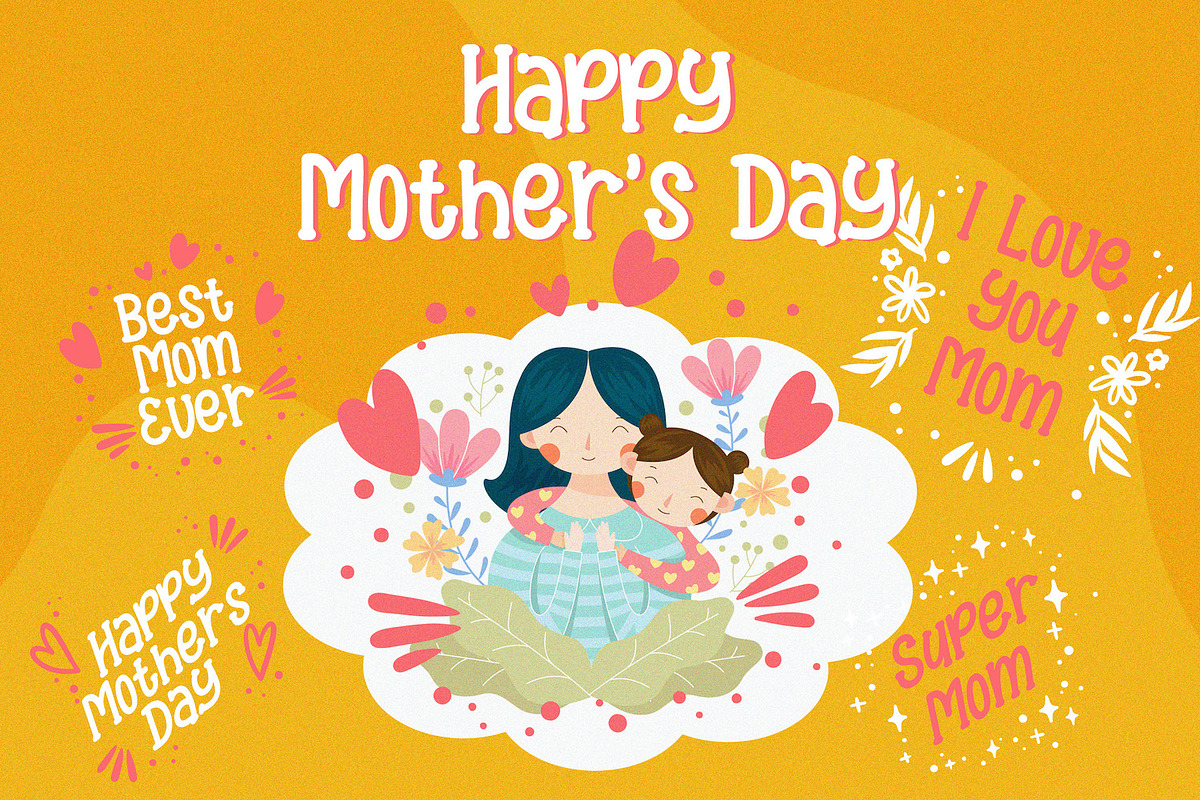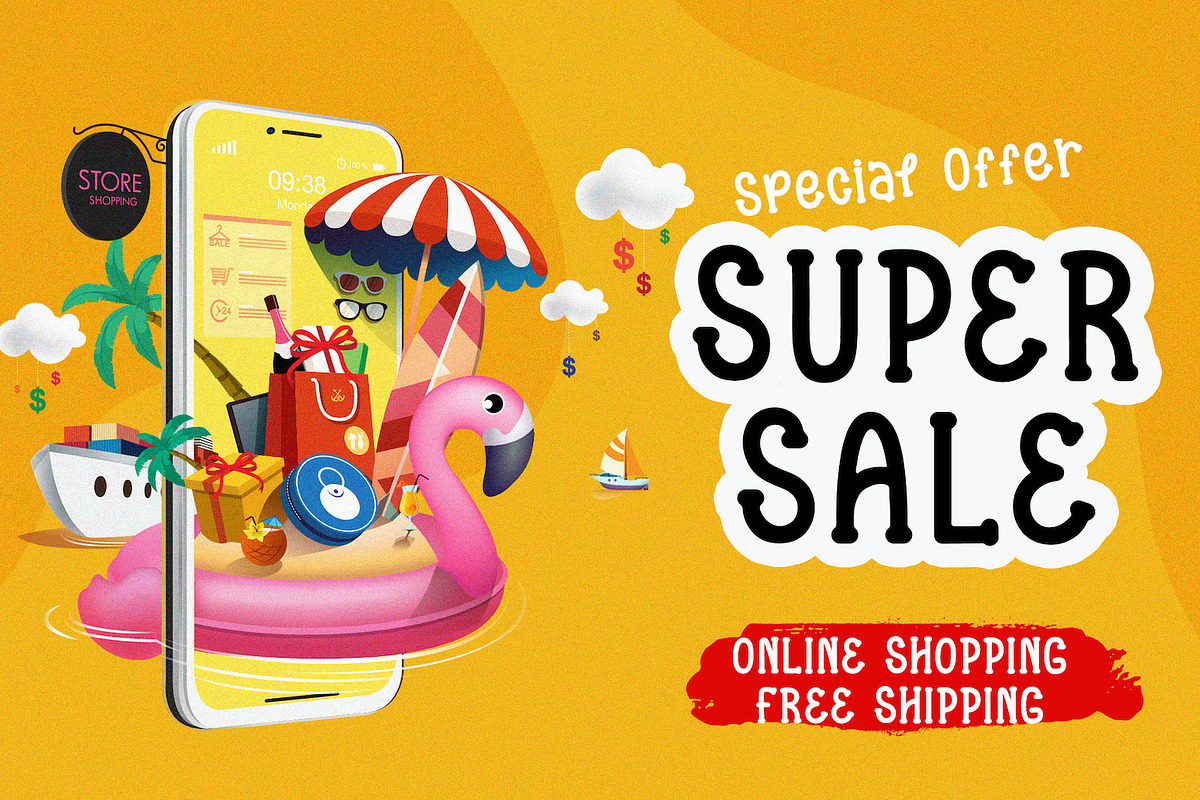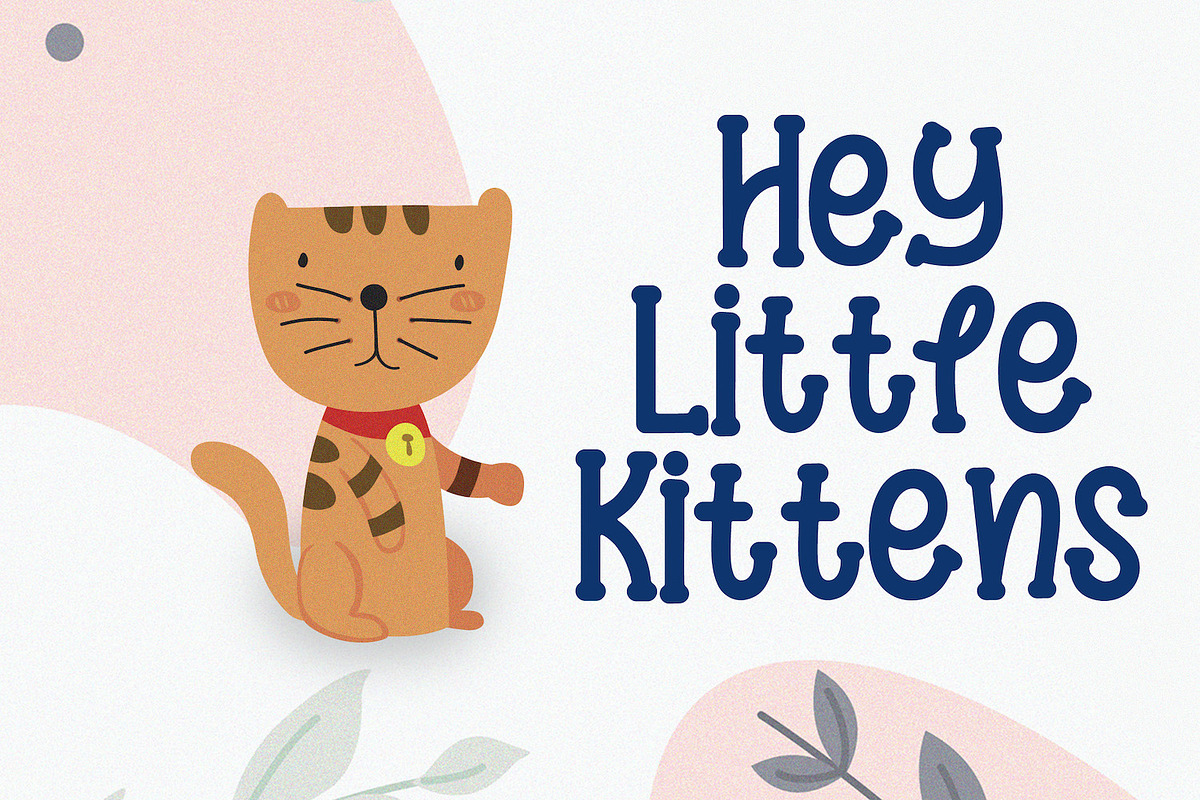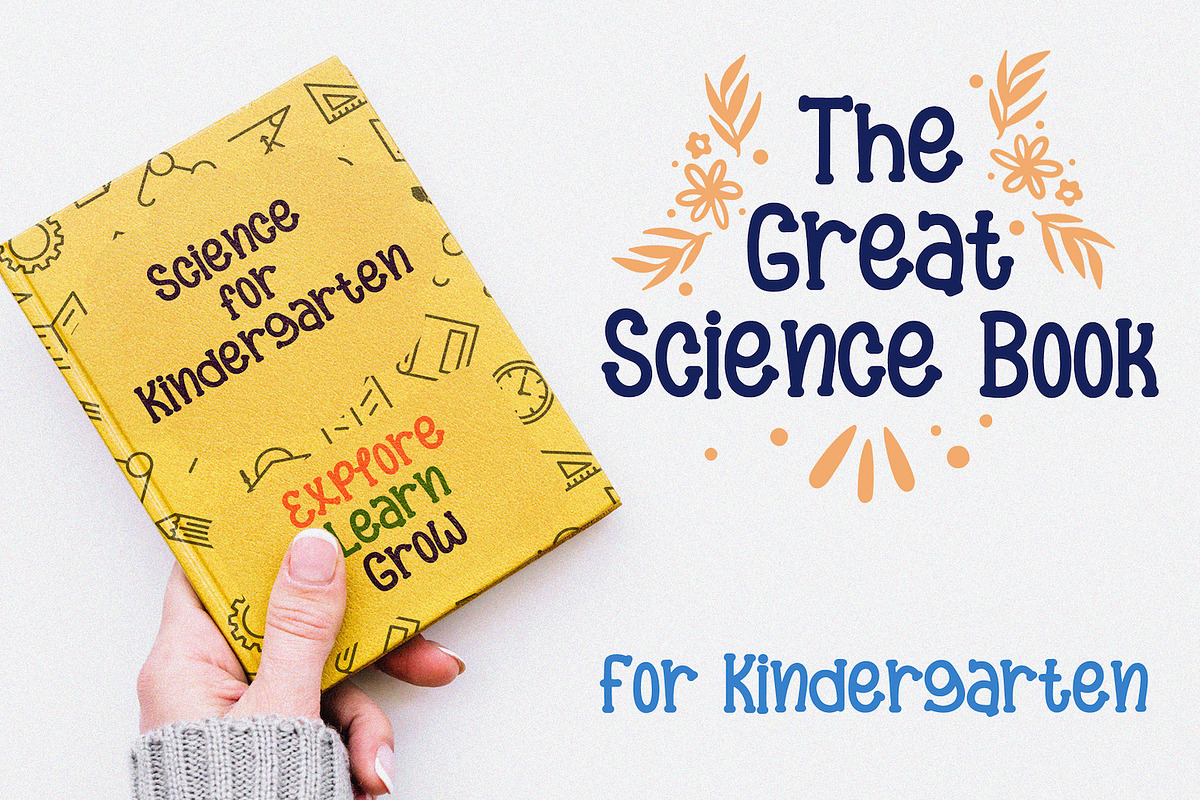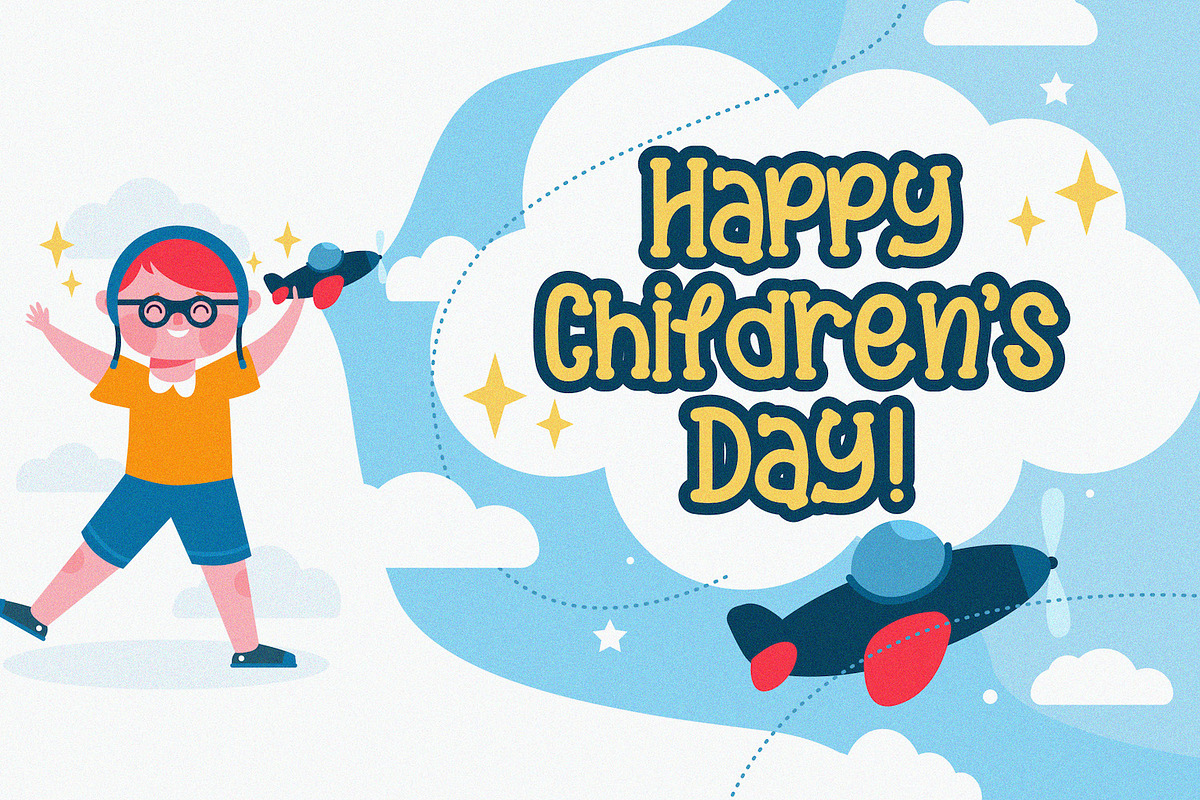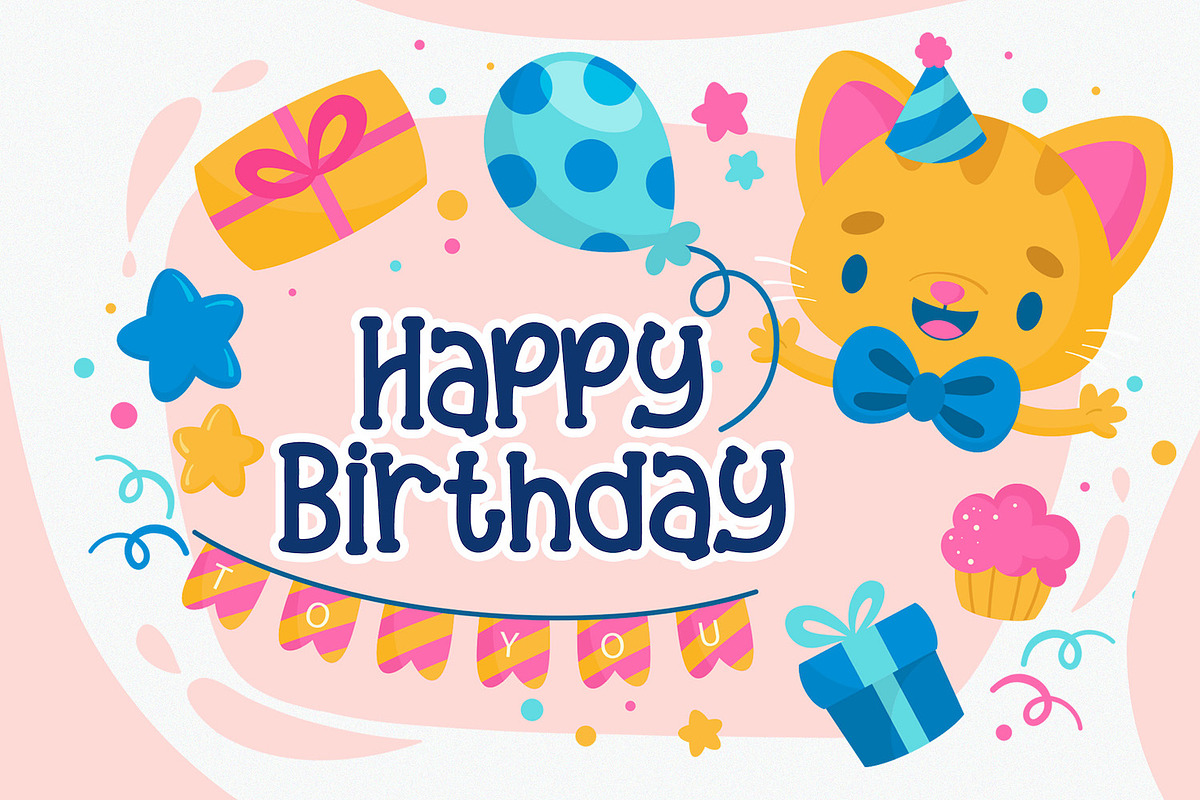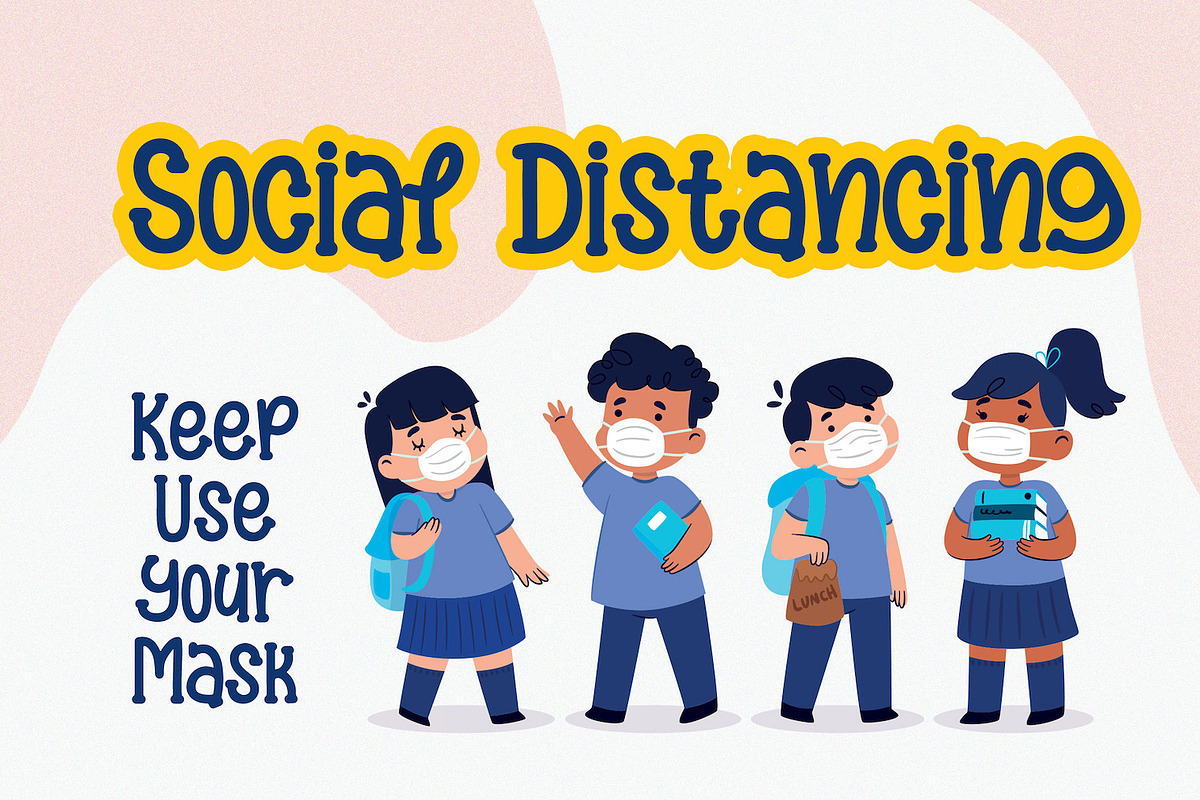
Super Kids - Playful Display Font
Introducing Super Kids - Playful Display Font
Super Kids is a playful, and quirky display font. Its friendly feel makes this font incredibly versatile, fitting a wide range of contexts. Add it to your creative ideas and notice how it makes them stand out!
Why Super Kids - Playful Display Font is worth a look
Super Kids - Playful Display Font by StringLabs fits naturally into Branding, posters, packaging, typography.